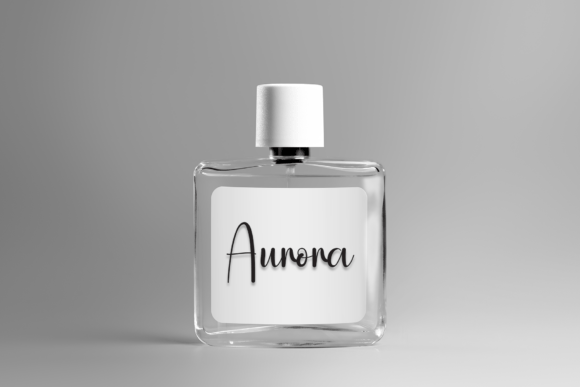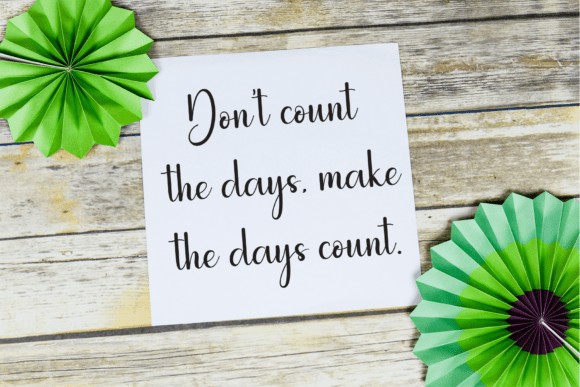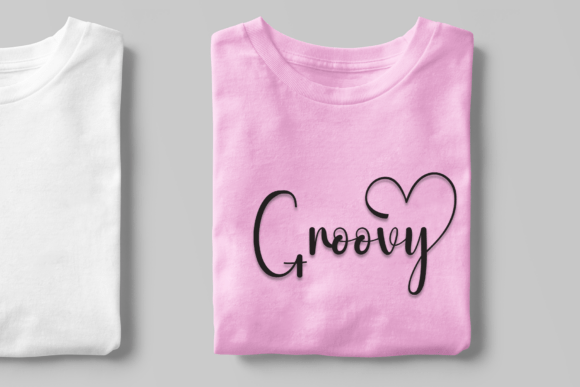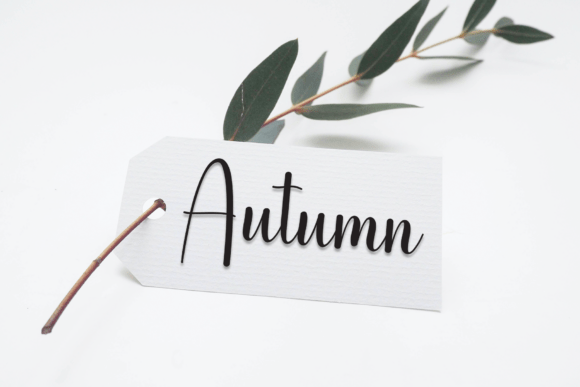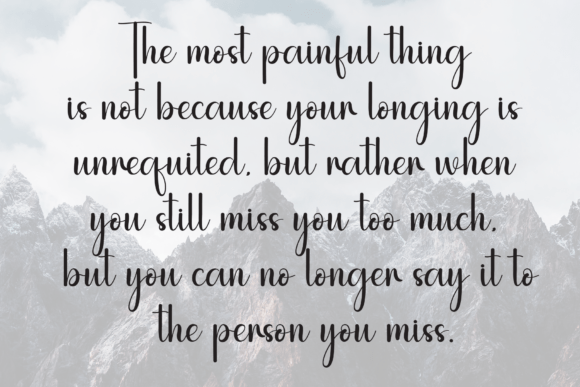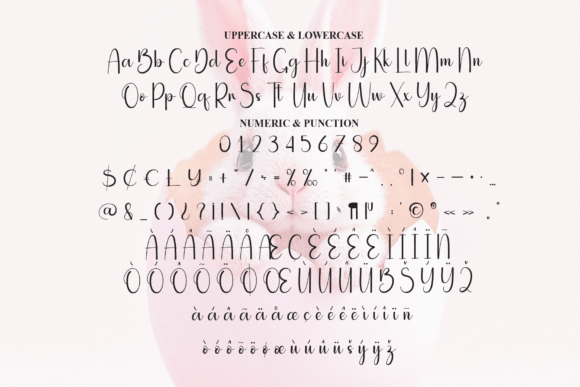
Bunny Font: Elevate Your Designs with Elegance and Charm
Are you looking for a font that adds a touch of sophistication and whimsy to your designs? Look no further than Bunny Font, a stylish handwritten script font that exudes elegance and charm with its fluid, graceful strokes. Perfect for branding, invitations, and stationery, Bunny Font is the ideal choice for designers and crafters seeking to create a personal and refined look.
The Characteristics of Bunny Font
Bunny Font is a beautifully crafted handwritten script font that boasts smooth curves and a natural flow, creating a timeless and refined look for any design. Its fluid strokes and elegant letterforms make it perfect for a variety of applications, from luxury branding to wedding invitations and stationery. The font’s charming and whimsical feel adds a personal touch to any design, making it stand out from more traditional fonts.
Uses of Bunny Font
Bunny Font is incredibly versatile and can be used in a wide range of design applications, including:
- Branding: Add a touch of elegance and sophistication to your brand’s identity with Bunny Font. Its fluid strokes and refined letterforms make it perfect for logos, business cards, and letterheads.
- Invitations: Create beautiful and unique invitations for weddings, baby showers, and other special occasions with Bunny Font. Its whimsical feel and elegant charm make it perfect for formal and informal events.
- Stationery: Elevate your stationery designs with Bunny Font’s refined and sophisticated look. Use it for letterheads, notebooks, and journals to add a personal touch.
Why Choose Bunny Font?
With so many fonts available, why choose Bunny Font? Here are just a few reasons why designers and crafters love this beautiful handwritten script font:
- Elegance and Charm: Bunny Font exudes elegance and charm with its fluid, graceful strokes, making it perfect for designs that require a touch of sophistication.
- Versatility: Bunny Font can be used in a wide range of design applications, from branding and invitations to stationery and more.
- Timeless Look: The font’s smooth curves and natural flow create a timeless, refined look that won’t go out of style.
- Easy to Read: Despite its elegant and cursive nature, Bunny Font is easy to read, making it perfect for body text and headings.
Tips for Using Bunny Font
To get the most out of Bunny Font, here are a few tips to keep in mind:
- Pair with Contrasting Fonts: Pair Bunny Font with contrasting fonts, such as bold sans-serif fonts, to create visual interest and hierarchy.
- Use for Headings and Titles: Use Bunny Font for headings and titles to add a touch of elegance and sophistication to your designs.
In conclusion, Bunny Font is a beautiful and versatile handwritten script font that adds a touch of elegance and charm to any design. With its fluid strokes, refined letterforms, and timeless look, it’s perfect for branding, invitations, stationery, and more. Whether you’re a designer or crafter, Bunny Font is a great choice for anyone seeking to create a personal and sophisticated look. So why not give it a try and see how it can elevate your designs?